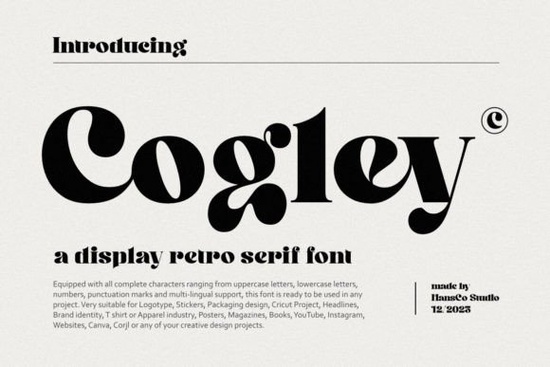
Designers, crafters, and small business owners often look for fonts that can bring a unique vibe to their projects. The Cogley Font is one such typeface that stands out with its vintage and retro aesthetic. Whether you're working on logos, packaging, or social media graphics, this serif font offers a timeless feel that complements a wide range of creative ideas. Its versatility makes it a go-to choice for anyone looking to add a touch of nostalgia to their designs.
The Cogley Font is designed with a complete set of characters, including uppercase and lowercase letters, numbers, punctuation marks, and support for multiple languages. This ensures that it can be used in various projects without any limitations. From t-shirt designs to book covers, this font adapts well to different formats and mediums. It’s especially popular among those who work with Cricut machines, Canva, or other design platforms that require high-quality typography.
What Makes the Cogley Font Stand Out?
The Cogley Font has a distinct character that sets it apart from other serif fonts. Its retro style evokes a sense of nostalgia, making it ideal for branding that wants to convey a vintage feel. This font works well for headlines, logos, and any project where a bold yet elegant look is needed. Its clean lines and subtle details make it easy to read while still maintaining a strong visual presence.
One of the key advantages of the Cogley Font is its adaptability. It can be used in both digital and print formats, which is essential for designers who work across different platforms. Whether you’re creating a website header or a poster for a local event, this font provides a consistent and professional appearance. Its multi-lingual support also makes it a great option for international projects or businesses targeting diverse audiences.
Best Uses for the Cogley Font
There are countless ways to incorporate the Cogley Font into your work. For example, it’s a popular choice for logo design, especially for brands that want to convey a classic or artisanal feel. It also works well for packaging design, where a retro look can help products stand out on the shelf. If you're involved in the print-on-demand industry, this font can add a unique touch to t-shirts, mugs, and other merchandise.
For social media content, the Cogley Font can help create eye-catching visuals for Instagram posts, YouTube thumbnails, or website banners. Its readability at different sizes makes it suitable for both large headlines and smaller text elements. Designers who use Canva or Adobe Spark will find this font particularly useful for quickly creating professional-looking designs without the need for complex formatting.
Final Thoughts
The Cogley Font is a valuable addition to any designer’s toolkit. Its vintage appeal, combined with its versatility and completeness, makes it suitable for a wide range of applications. Whether you're working on a personal project or a client’s design, this font can help elevate your work with its unique character.